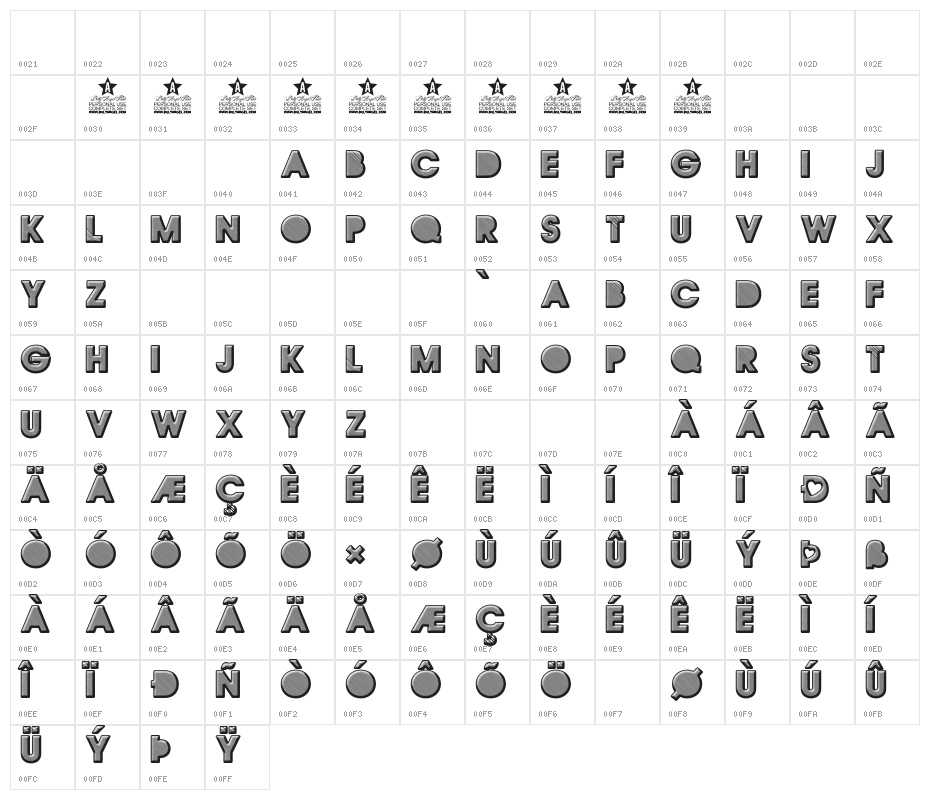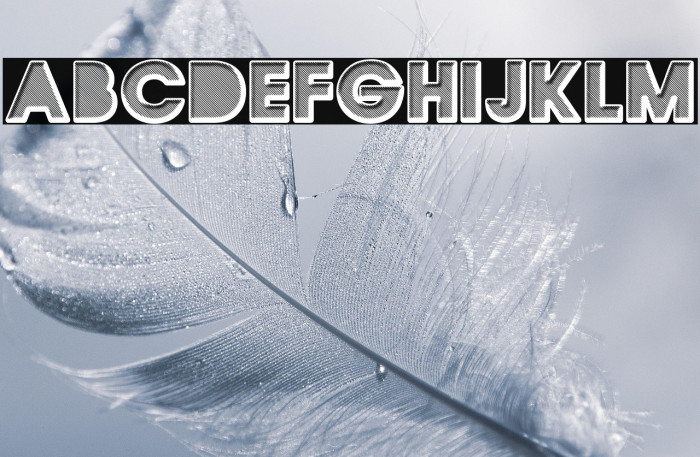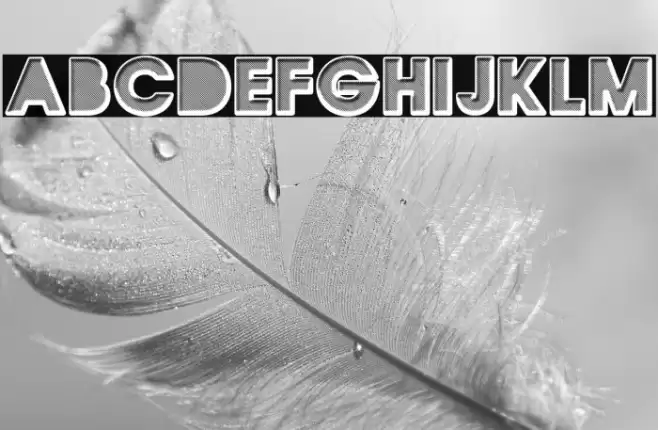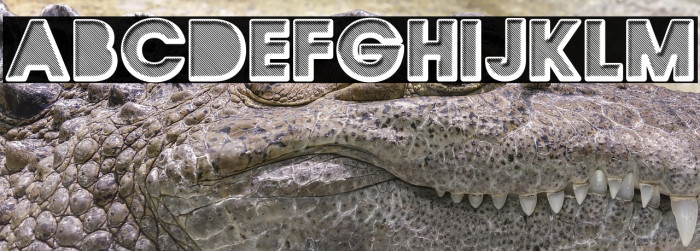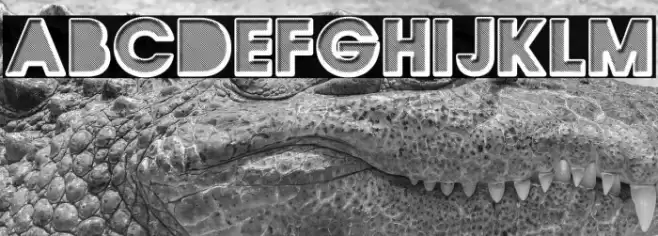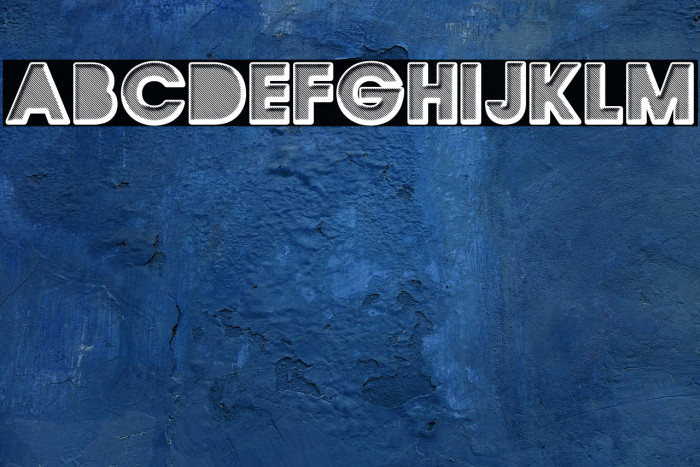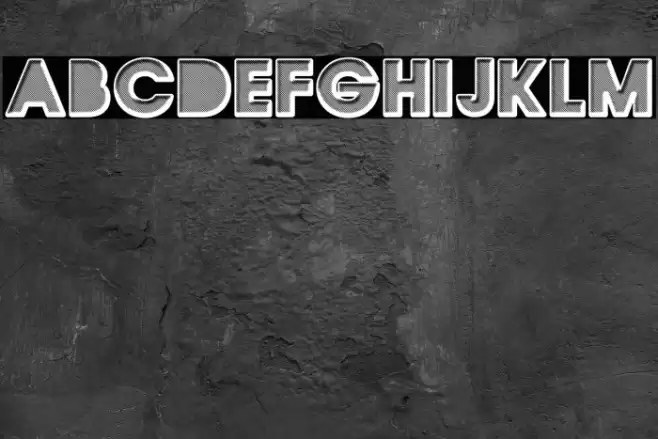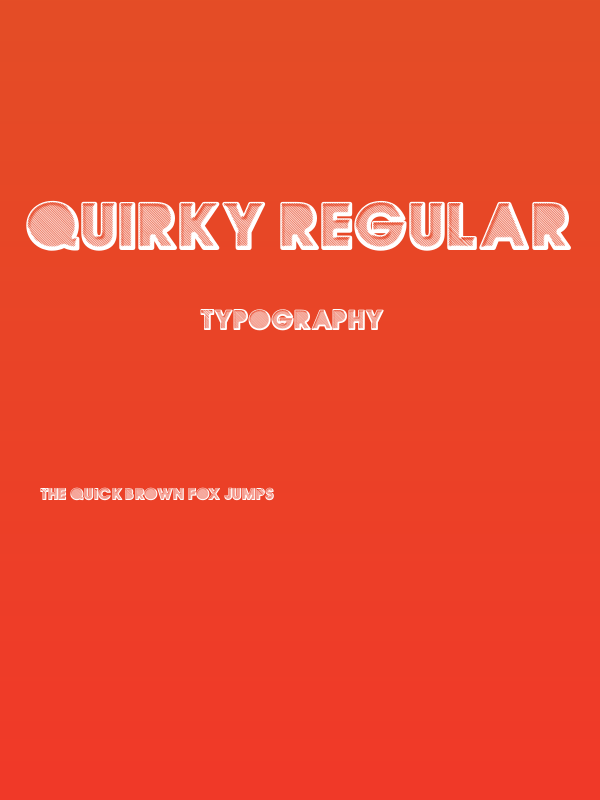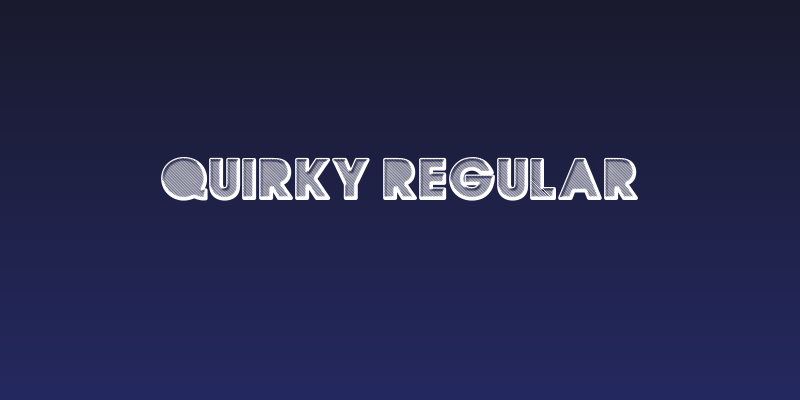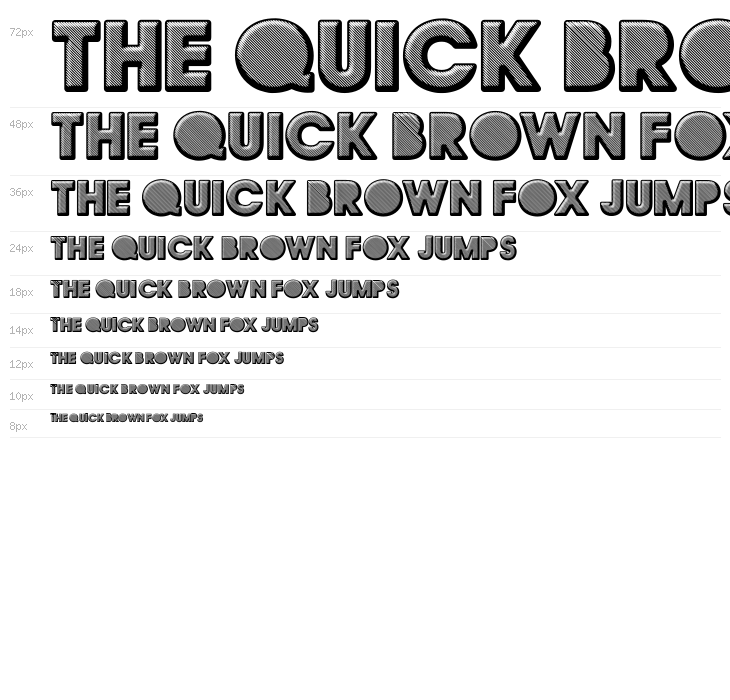
QUIRKY Regular Font
QUIRKY Regular Description
This font features a bold and playful design with a three-dimensional effect. The letters are uppercase and have a distinct shadowing that gives them depth and a quirky appearance. The strokes are thick, and the characters have a consistent width, creating a uniform look. The style is decorative and eye-catching, making it suitable for creative and fun projects. The font's unique texture and shading add a dynamic element, enhancing its visual appeal.
| Proposed Projects | Ideal for posters, headlines, children's books, and playful branding. |